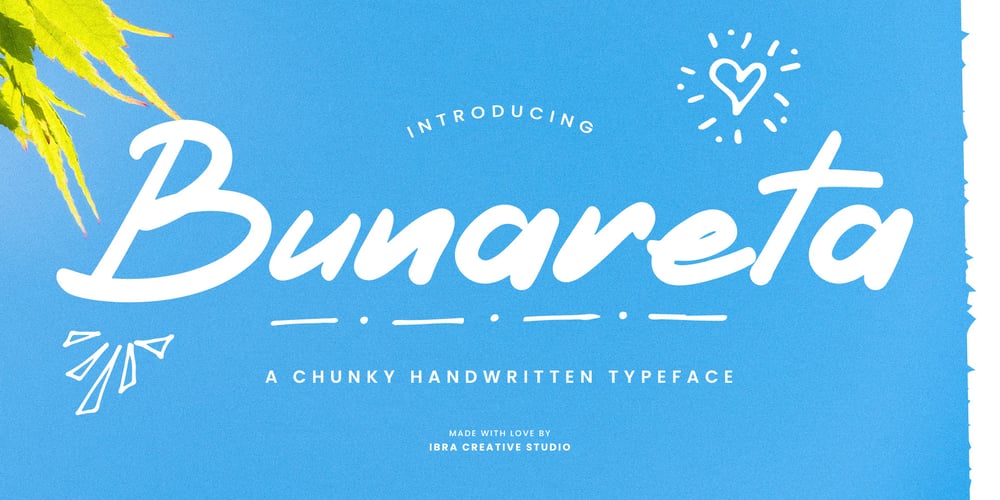
Bunareta Font Family was designed by Roisatul Azizah and published by IbraCreative. Bunareta contains 1 styles and family package options. Bunareta – A chunky Handwritten TypefaceBunareta, a chunky handwritten typeface, emanates a playful and tactile charm with its bold strokes and distinctive character. Each letter is crafted with a delightful sense of imperfection, capturing the essence of handwritten authenticity. The chunky weight of Bunareta lends a friendly and approachable feel, making it an ideal choice for designs that seek to convey a touch of warmth and personality. Whether used for branding, signage, or creative projects, Bunareta adds a whimsical flair that transcends the constraints of traditional typefaces. Its handwritten charm, combined with a robust and chunky demeanor, ensures that every word written in Bunareta becomes a visual celebration of individuality and joy.Bunareta is perfect for branding projects, logo, wedding designs, social media posts, advertisements, product packaging, product designs, label, photography, watermark, invitation, stationery, game, fashion and any projects.Fonts include multilingual support for; Afrikaans, Albanian, Czech, Danish, Dutch, English, Estonian, Finnish, French, German, Hungarian, Italian, Latvian, Lithuanian, Norwegian, Polish, Portuguese, Slovak, Slovenian, Spanish, Swedish.